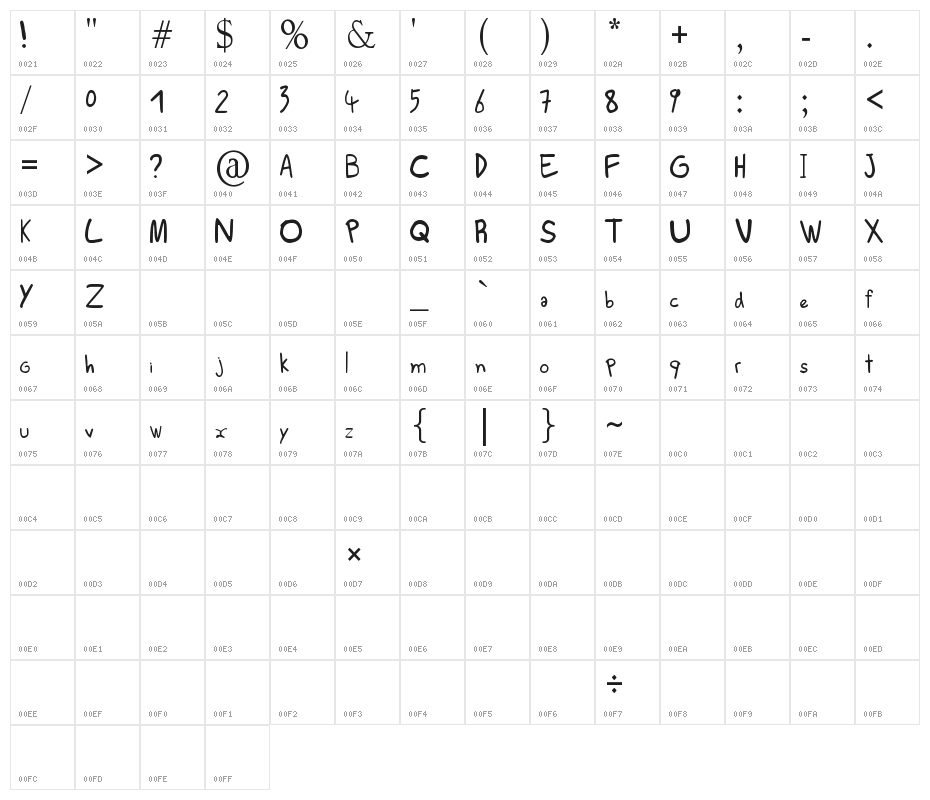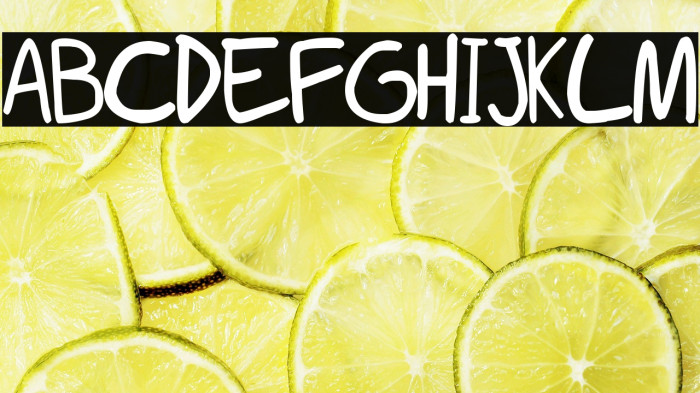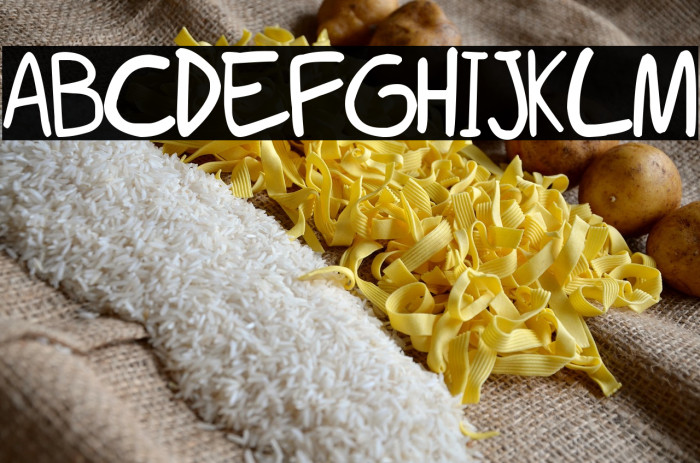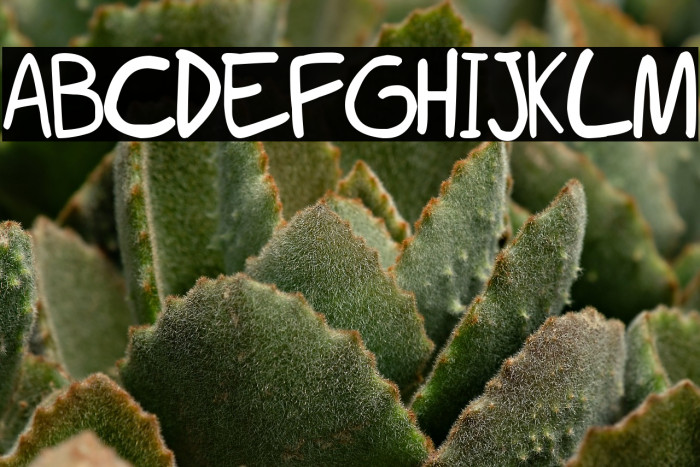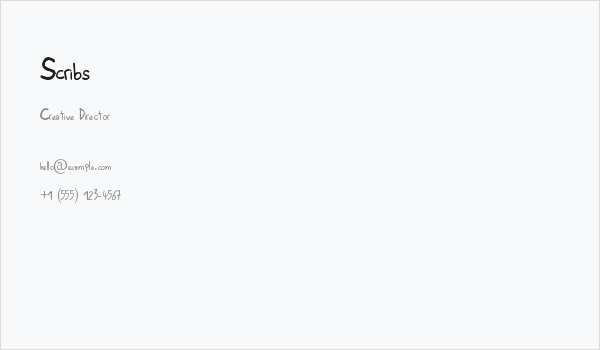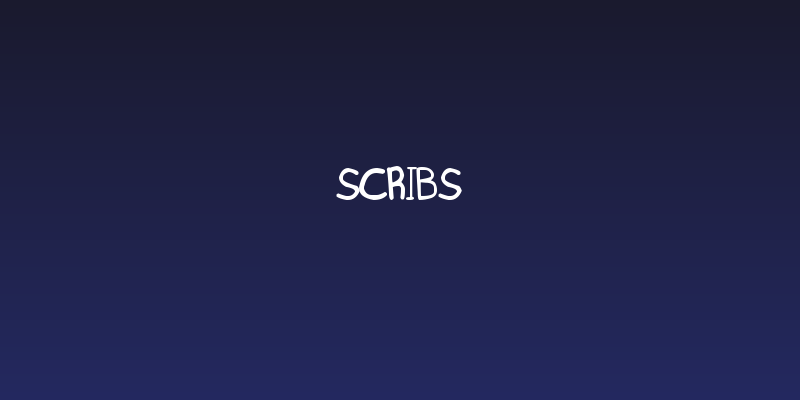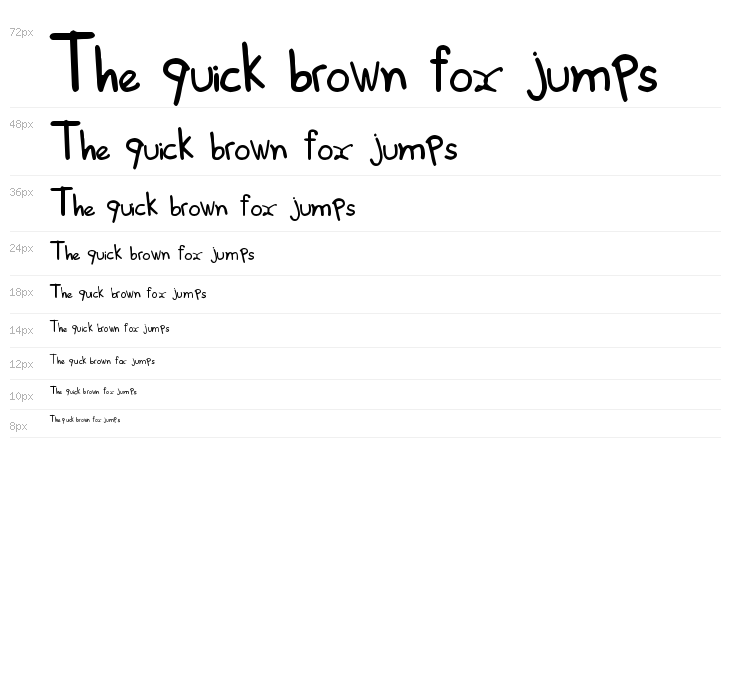
Scribs Font
Scribs Description
This playful and informal font features a handwritten style with a casual and friendly appearance. The characters are slightly irregular, giving them a whimsical and approachable feel. The strokes are smooth and rounded, with a consistent thickness that maintains readability while adding a touch of personality. The uppercase and lowercase letters are well-balanced, and the numerals are clear and distinct. Special characters are included, enhancing its versatility for various uses. This font is ideal for projects that require a personal touch or a fun, informal vibe.
| Proposed Projects | Great for greeting cards, children's books, casual branding, and playful social media graphics. |